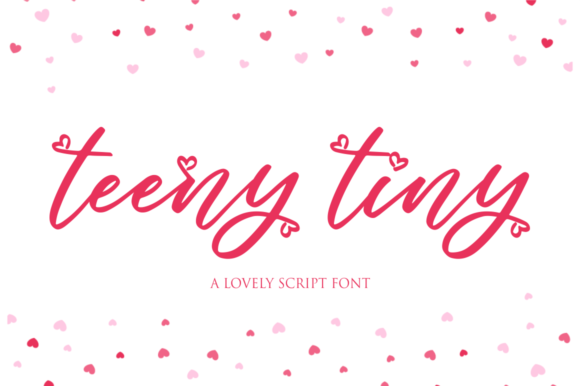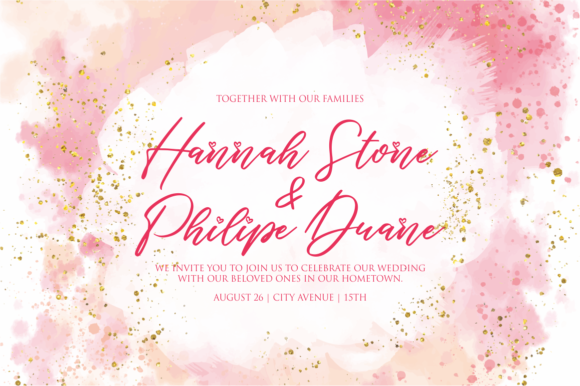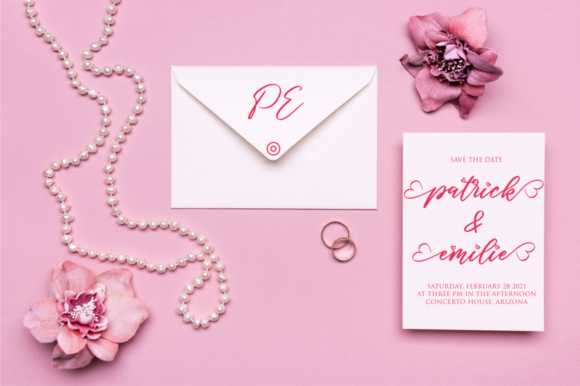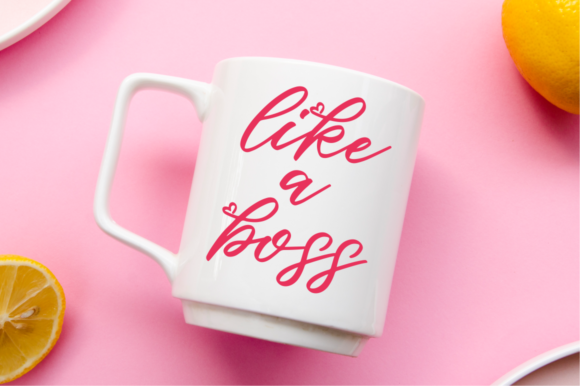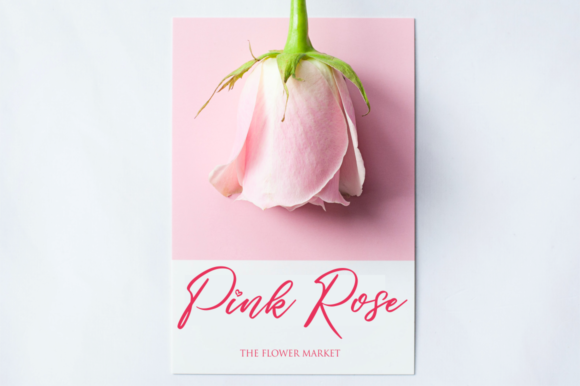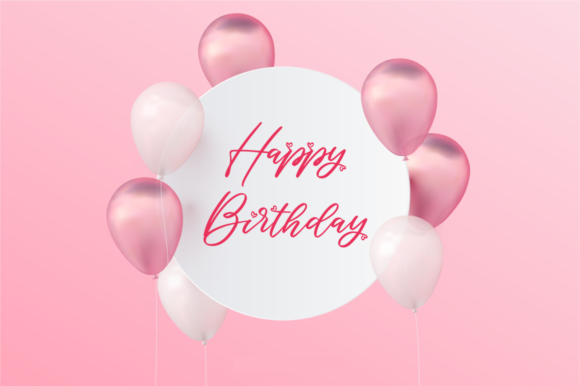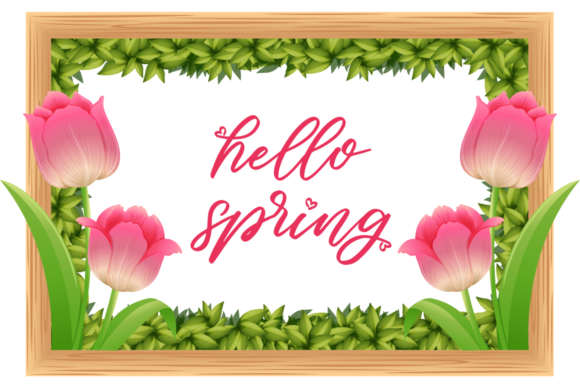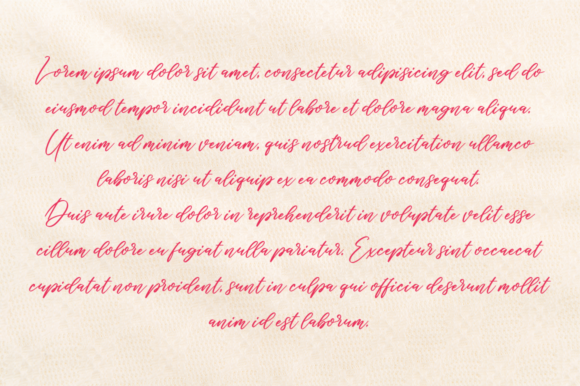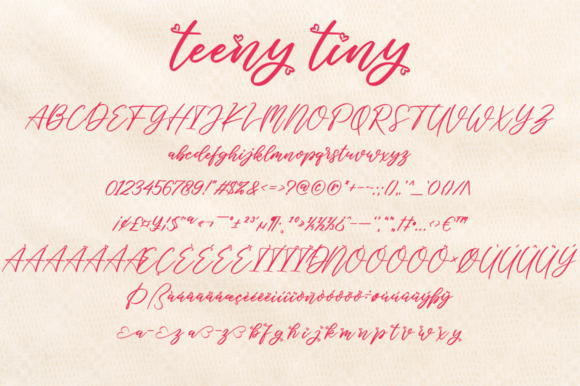
Teeny Tiny Font
About Teeny Tiny Font
Teeny Tiny is a beautiful script font. It has a romantic look that makes it perfect for creating gorgeous wedding invitations, beautiful stationary art, eye-catching social media posts, and cute greeting cards.